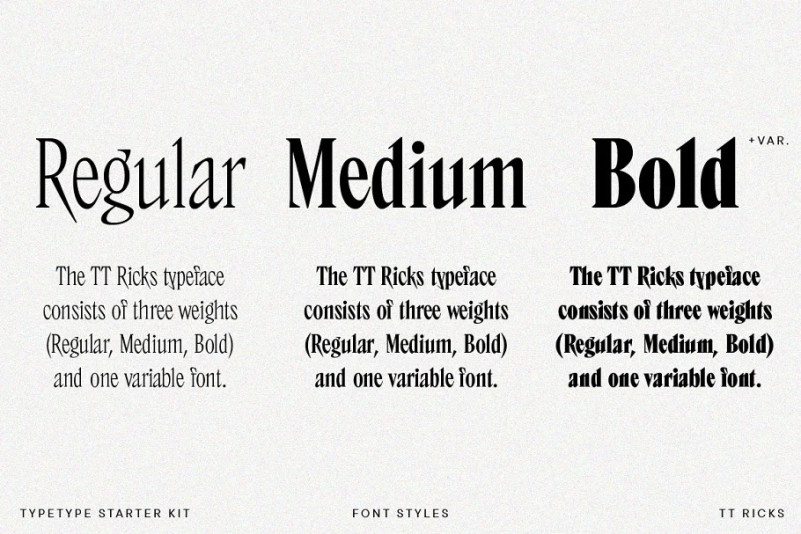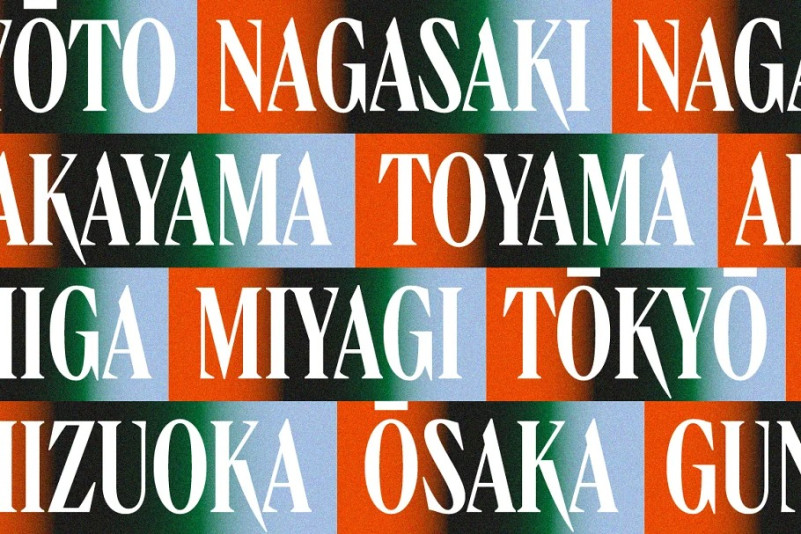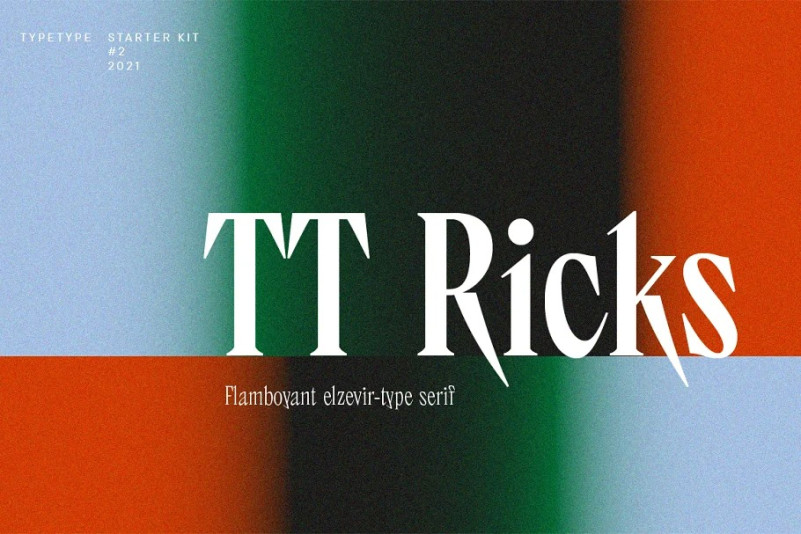
TT Ricks Font
We are glad to present you the new font TT Ricks Serif Font, which continues the line of trendy and yet affordable TypeType Starter Kit fonts.
TT Ricks is a flamboyant elzevir-type serif, for which the words “cute” or “calm” are not a fitting definition. TT Ricks can be classified as a display title typeface that works especially well at large and medium sizes in packaging design, book graphics and posters.
The typeface is inspired by the pre-digital font “De Vinne”, which was designed in 1892 by the designer Gustav F. Schroeder. We liked certain aspects of the historical prototype, but at the same time, when creating TT Ricks, we did not want to limit ourselves—on the contrary, we were eager to discover a completely new spirit and bring bright details to the font.
Important information! There is no Cyrillic support in TT Ricks!
The TT Ricks typeface stands out for its strong contrast, noticeable sharp serifs, narrow letterforms with a pronounced displacement of flows in the arches. The typeface has very dense spacing, and in the bold style, the text set begins to resemble Gothic by its richness and tension.
Important visual features of TT Ricks are the dashing shapes of ascenders and descenders, the thin and sharp stroke endings, and the “elzevier legs” of the letters R K k. In the lowercase round characters c e s, you can notice the pronounced slope of the oval, which contrasts with the general set of the font. These “slanted” signs and ascenders and descenders of the letters f and y are designed to cut the monotony of a set and to entertain the reader’s eyes.
The TT Ricks typeface consists of three weights (Regular, Medium, Bold) and one variable font. Each style consists of 553 glyphs and contains 18 OpenType features. The most interesting features are stylistic alternates for the letters R K k with alternative short leg shapes, two sets of figures for working with upper and lower case characters, and a set of original icons that further reveal the spirit of the family.